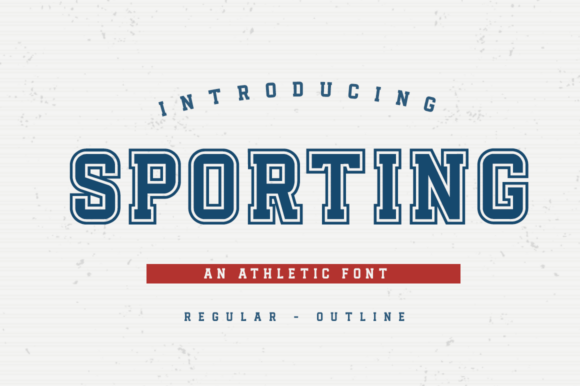
Introducing Sporting Font, the ultimate font for unleashing your athletic creativity! Created by the talented minds at Pentype Studio, this font family is designed to captivate and inspire. Sporting Font is not just any ordinary display font; it's a dynamic and energetic masterpiece that will take your sports-themed designs to new heights.
Are you looking to create eye-catching posters that make a statement? Sporting Font is your go-to solution! With its bold and captivating style, this font will instantly grab attention and leave a lasting impression. Whether you're designing academic posters, event flyers, or motivational prints, Sporting Font is the perfect choice to elevate your message.
Not only does Sporting Font excel in poster designs, but it's also an ideal companion for sports apparel. Imagine the impact of your team's name or slogan proudly displayed on t-shirts, jerseys, or even merchandise. Sporting Font adds a touch of professionalism and excitement to any sports-related merchandise, making it a must-have for sports enthusiasts and teams alike.
But the possibilities don't stop there! Sporting Font is also a fantastic option for sports logos and branding. With its unique and versatile letterforms, this font allows you to create a distinctive identity for your sports team or organization. Stand out from the crowd with a logo that embodies the spirit of athleticism and grabs attention with its boldness.
Not only is Sporting Font visually stunning, but it also offers exceptional legibility, ensuring that your message is delivered with clarity and impact. Whether it's on posters, websites, or any other advertising medium, this font guarantees that your content will be readable and engaging.